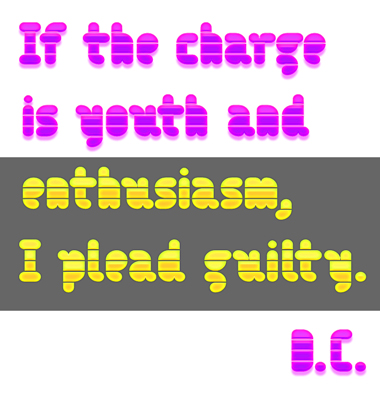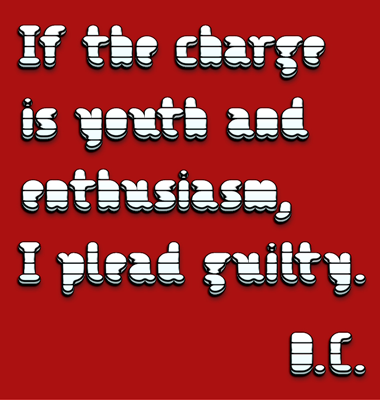
• Small is beautiful. I thought I could add a new spin to Stewf's little gem. I also expanded the character set a bit. It was fun.
This project has started from a clone of Leaflet Stem by Stewf. The link to the original had been lost after re-cloning, which I did to fix a technical glitch. But here it is again for the sake of convenience: Leaflet Stem
The original letters are hardly recognizable, if at all, since I've customised the lower case, fully reshaped the numbers, added the capitals, special characters, punctuation marks, as well as the extended latin glyphs. I opted for horizontal gaps, as it enhances the horizontal strokes nicely. It was a challenge to work with a 2x4 or 3x4 brick array, and wrestle with FS' limited capacity of spacing and kerning.
Good work! With so little pixels! I like the solutions of 'H', 'g' & 'w'. I find the spacing should be more consistent, e.g. on 'e' & 't'.
Awesomely simple! Very readable too. I like it.
Yep: really nice H solution!
But i fell in love with the g.
makes me want to write gorgeous over and over. gorgeous!
I also enjoy the & and @, 4, but specially the +
dude, this is totally re-imagined and rocks. a worthy descendant of Leaflet Stem. if cloned, why no links to the original?
If you make a clone of a clone and then delete the first clone, fontstruct forgets the original link! (Oh, crap – I just told the george-cloney trolls how to really rip off someone else’s fontstructions ;) I even believe this applies if you simply haven’t published the intermediary clone. Well, the clone will indicate itself as such, but the original will no longer link to the cloned version.
Oh, and I think this is pretty rad, too!
Thank you for your comments. Who would have thought this simple font could sparkle interest after months of its release. Well, this fontstruction is on my list of works to be revamped and extended.
@funk_king: The answer to your question was already given in my first comment. will.i.ૐ said basically the same thing. I've changed so many things, the original could not possibly be identified by just looking at it. I've provided the info and the hyperlink to be truthful and historically correct. I think my work won't be any less if I admit its origin.
The extended Latin set is nearly complete. Some of the old characters underwent cosmetic surgery: I've replaced the sharp corners with soft rounded ones.
I've changed the name from Chromosomes to the more specific Karyotype. The new name is also chromosome related (for details see Wikipedia.org) but has the "T word" in it.
The new samples make this gem glitter even more.
This just gets better and better - well worth my 10 :)
Another great example of FontStruction remix – an original design with beautiful glyphs and tasty samples.